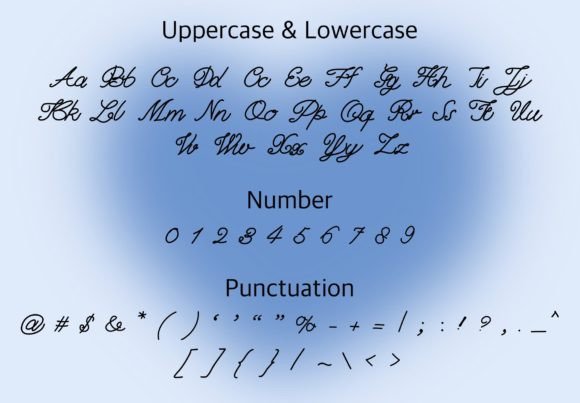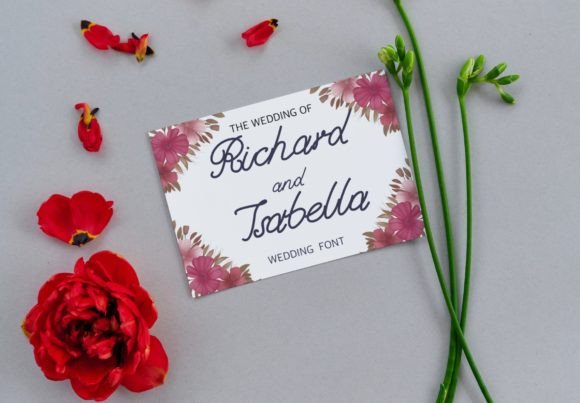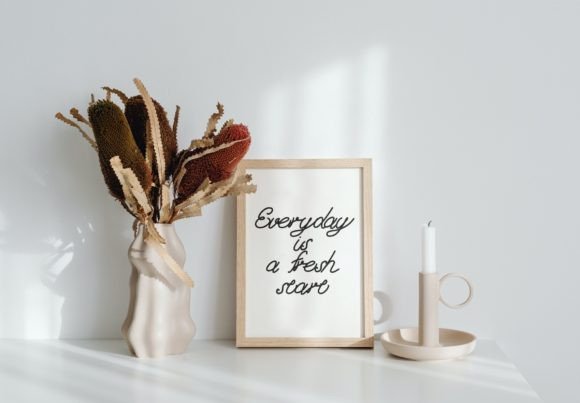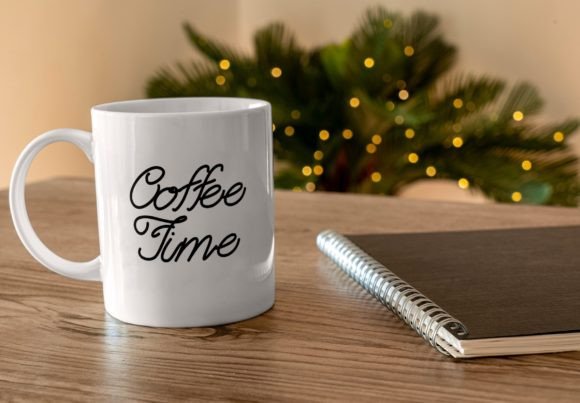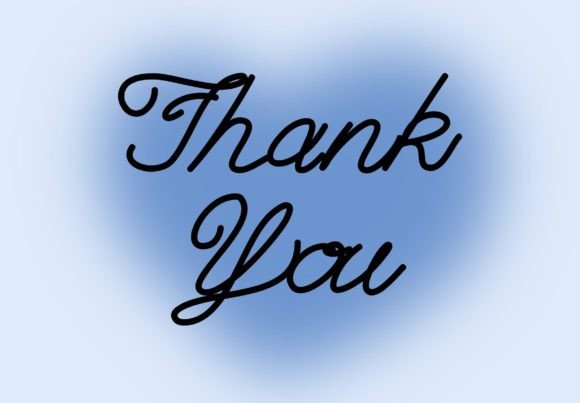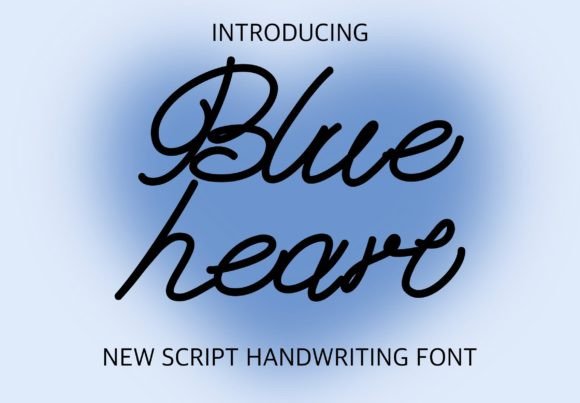
Introducing Blue Heart Font: The Lovely Handwritten Font for Every Occasion
Are you tired of using the same old fonts for your digital designs, crafts, and greeting cards? Look no further! Blue Heart Font is a beautiful and simple handwritten font that is sure to become your new favorite go-to font. With its charming and elegant style, Blue Heart Font is perfect for a wide range of projects, from crafting and digital design to presentations and making greeting cards.
What Makes Blue Heart Font So Special?
Blue Heart Font is a lovely and simple handwritten font that is designed to add a personal touch to your projects. Its elegant and cursive style makes it perfect for a variety of occasions, including:
• Crafts: Use Blue Heart Font to add a personal touch to your handmade crafts, such as scrapbooking, card making, and journaling.
• Digital Design: Add a touch of elegance to your digital designs, such as social media graphics, blog posts, and website headers.
• Presentations: Make your presentations stand out with Blue Heart Font, perfect for titles, headings, and quotes.
• Greeting Cards: Create beautiful and heartfelt greeting cards for special occasions, such as birthdays, weddings, and holidays.
Features of Blue Heart Font
Blue Heart Font has several features that make it a great choice for designers and crafters:
• Handwritten Style: Blue Heart Font has a beautiful handwritten style that adds a personal touch to your projects.
• Simple and Elegant: The font is simple and elegant, making it perfect for a wide range of projects.
• Easy to Read: The font is easy to read, even at small sizes, making it perfect for digital designs and small print projects.
Tips for Using Blue Heart Font
Here are some tips for using Blue Heart Font in your projects:
• Pair it with Other Fonts: Blue Heart Font pairs well with other fonts, such as sans-serif fonts and script fonts. Experiment with different font combinations to find the perfect look for your project.
• Use it for Headings and Titles: Blue Heart Font is perfect for headings and titles, adding a touch of elegance and sophistication to your projects.
• Add a Personal Touch: Use Blue Heart Font to add a personal touch to your projects, such as handwritten notes and quotes.
• Experiment with Colors: Blue Heart Font looks great in a variety of colors, from bright and bold to soft and pastel. Experiment with different colors to find the perfect look for your project.
Where to Use Blue Heart Font
Blue Heart Font can be used in a wide range of projects, including:
• Digital Design: Use Blue Heart Font in your digital designs, such as social media graphics, blog posts, and website headers.
• Crafts: Add a personal touch to your handmade crafts, such as scrapbooking, card making, and journaling.
• Presentations: Make your presentations stand out with Blue Heart Font, perfect for titles, headings, and quotes.
• Greeting Cards: Create beautiful and heartfelt greeting cards for special occasions, such as birthdays, weddings, and holidays.
• Signs and Posters: Use Blue Heart Font to create eye-catching signs and posters for events, sales, and promotions.
Font Name Blue Heart Font
Author KisbyArt
In conclusion, Blue Heart Font is a lovely and simple handwritten font that is perfect for a wide range of projects. With its elegant and cursive style, Blue Heart Font is sure to become your new favorite go-to font. Whether you’re a designer, crafter, or just someone who loves to create, Blue Heart Font is a great choice for adding a personal touch to your projects.